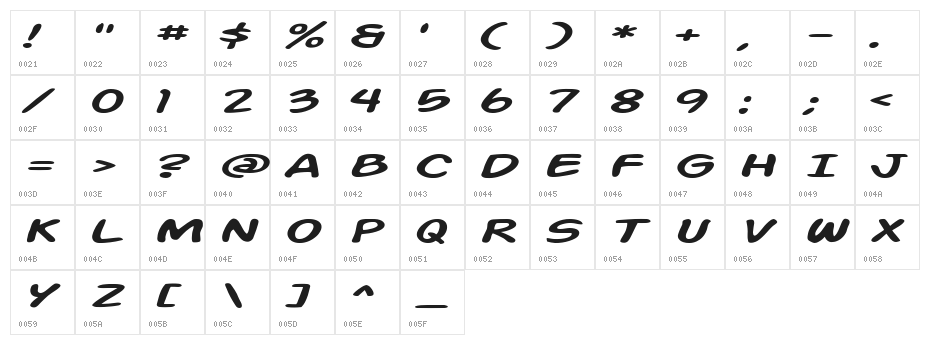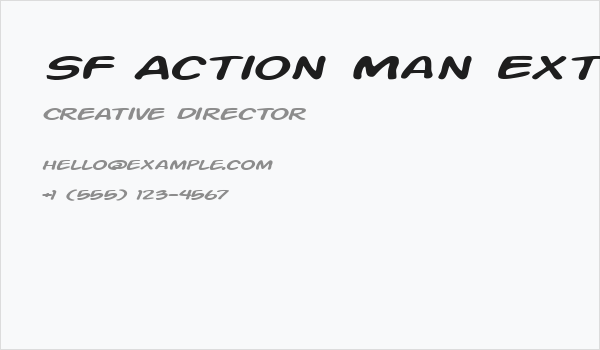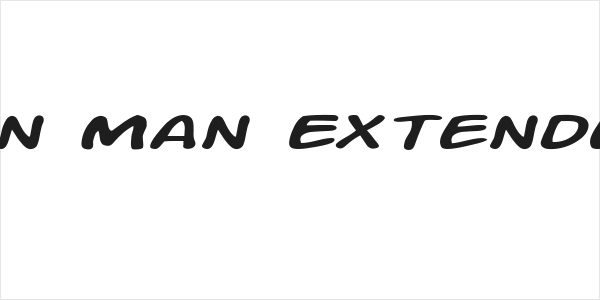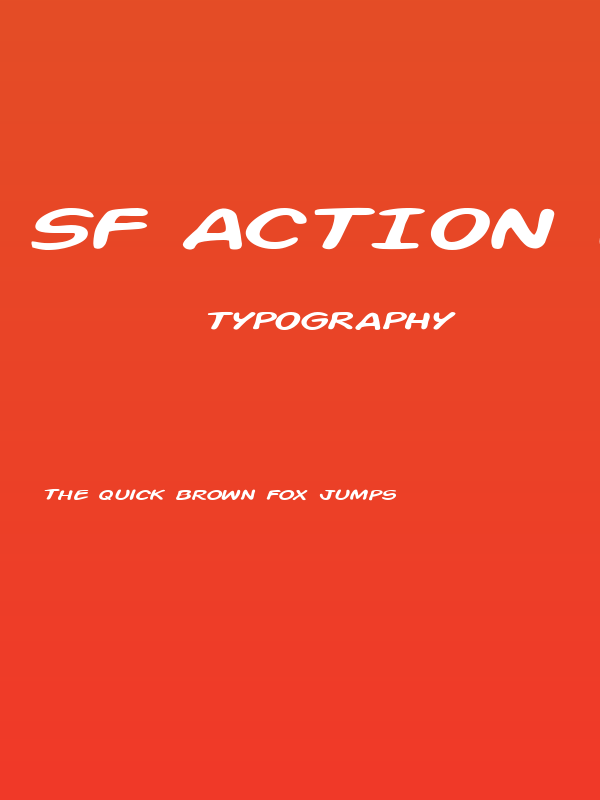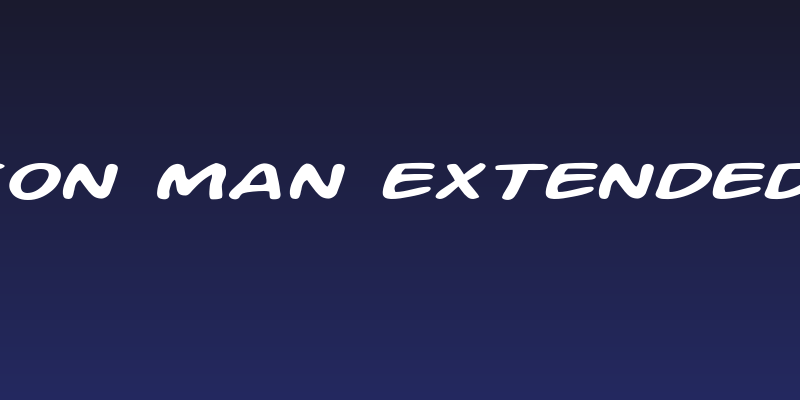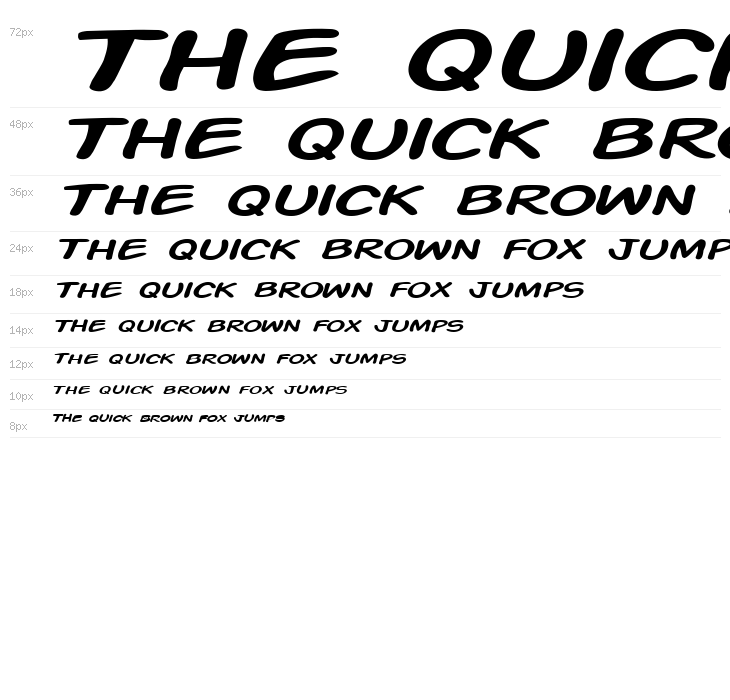
SF Action Man Extended Italic Font
SF Action Man Extended Italic Description
This font features a dynamic and energetic style with a slanted, italicized form that gives it a sense of motion and fluidity. The characters are bold and extended, providing a strong presence on the page. The strokes are smooth and rounded, contributing to a friendly and approachable appearance. The spacing between characters is slightly tight, which enhances the cohesive look of the text. The numbers and special characters maintain the same bold and italicized style, ensuring consistency across all elements.